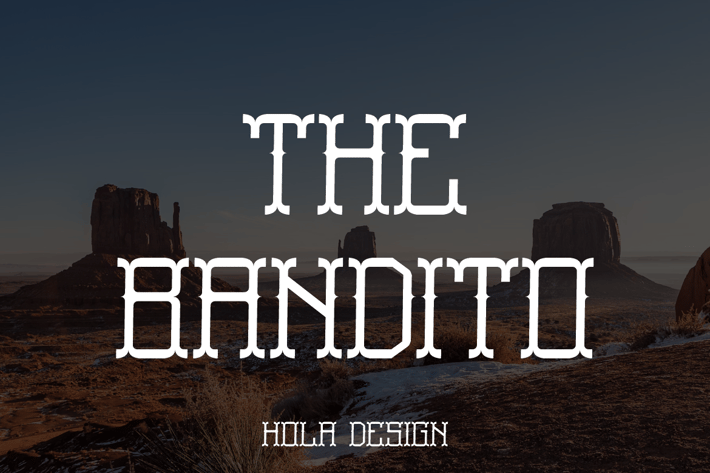
The Bandito - Thin Font
The Bandito Font is unique . Ready to use for your design like labeling, movie sceen, poster, movie title, gigs, album covers, logos, and much more.